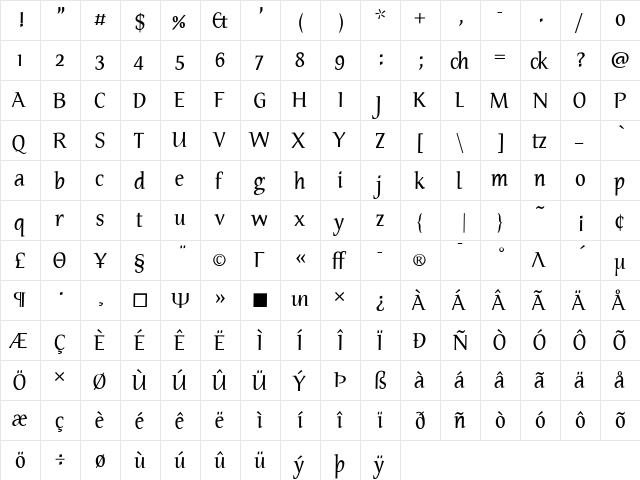
TarquiniusPlus Book
TarquiniusPlus offers clean, dependable letterforms without strong stylistic allegiance, making it a practical choice for designers who need flexibility.